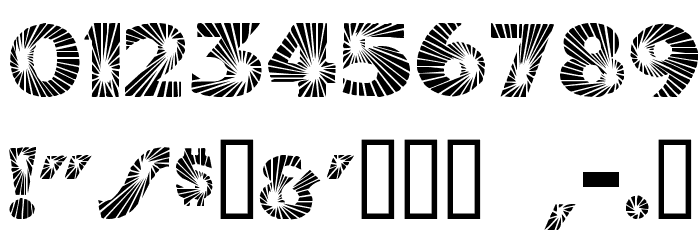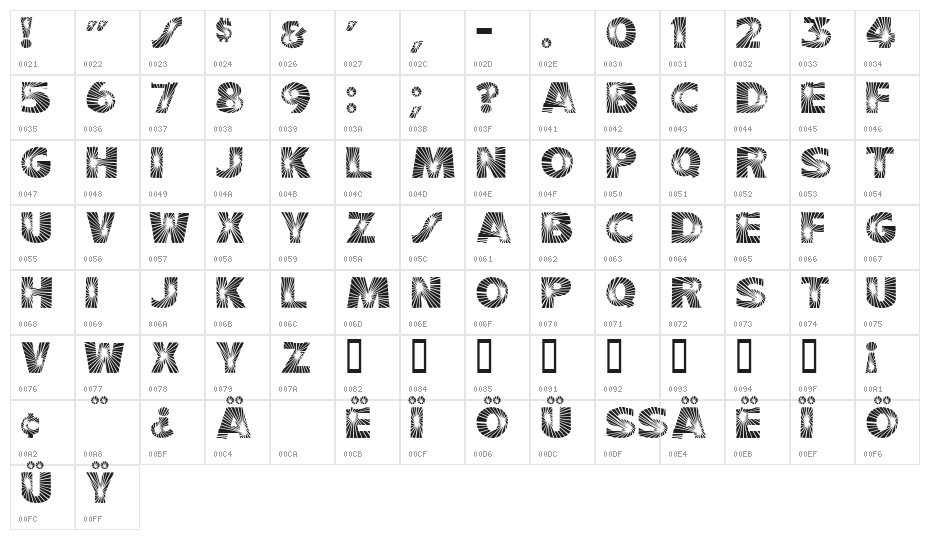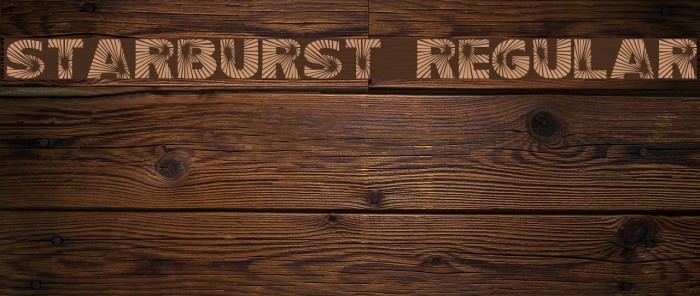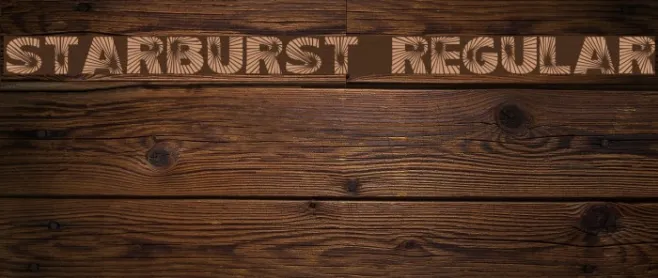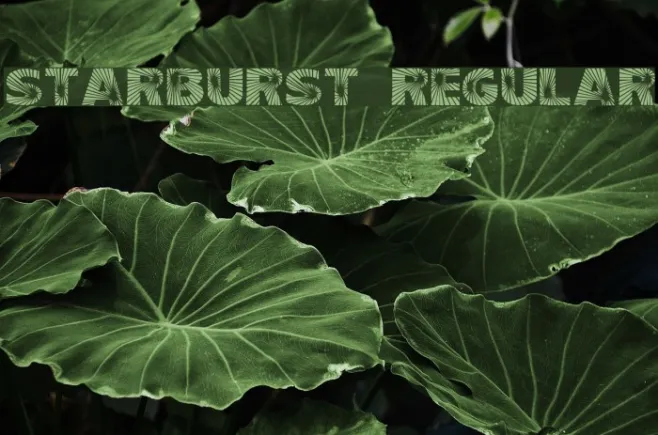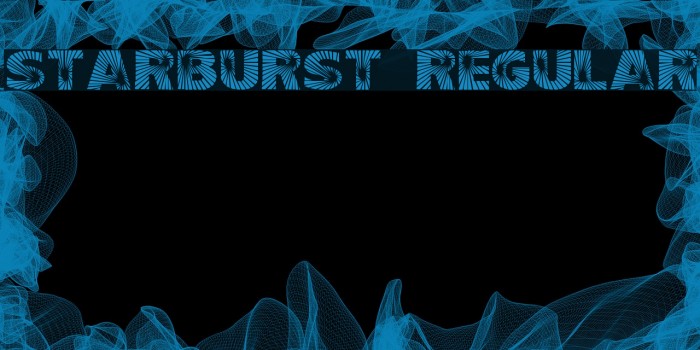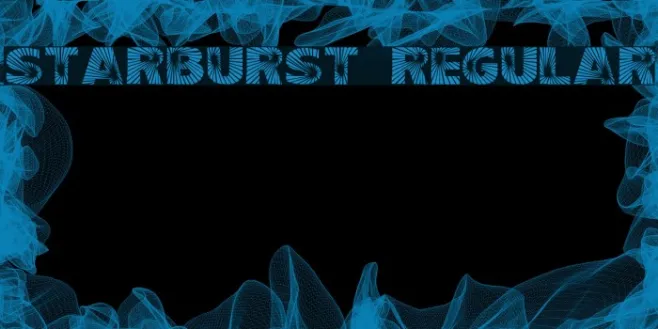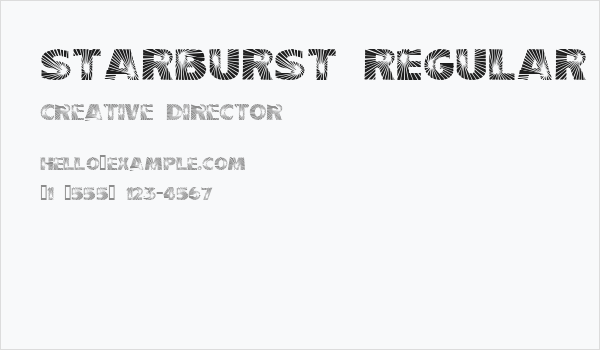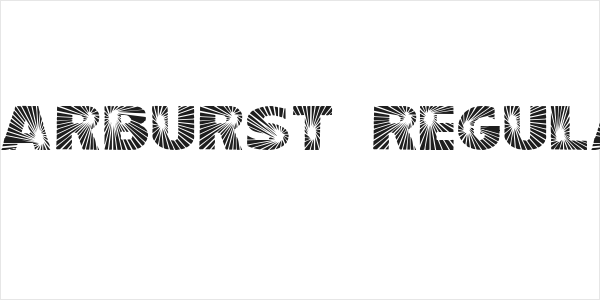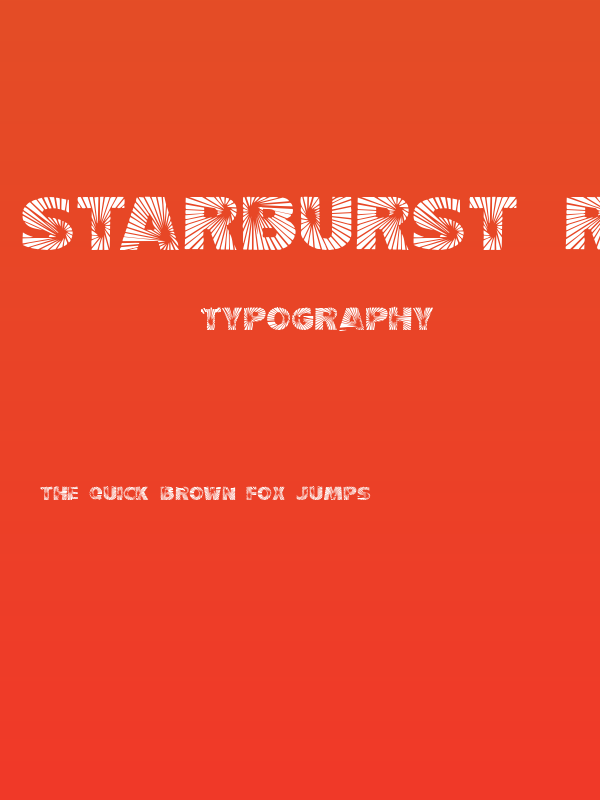
Starburst Regular Font
Starburst Regular Description
This font features a bold, decorative style with a unique starburst pattern filling each character. The design is highly graphic, with lines radiating from a central point within each letter and number, creating a dynamic and eye-catching effect. The characters are all uppercase, with consistent thickness and a uniform width, contributing to a cohesive appearance. The font's playful and energetic style makes it suitable for projects that require a strong visual impact.